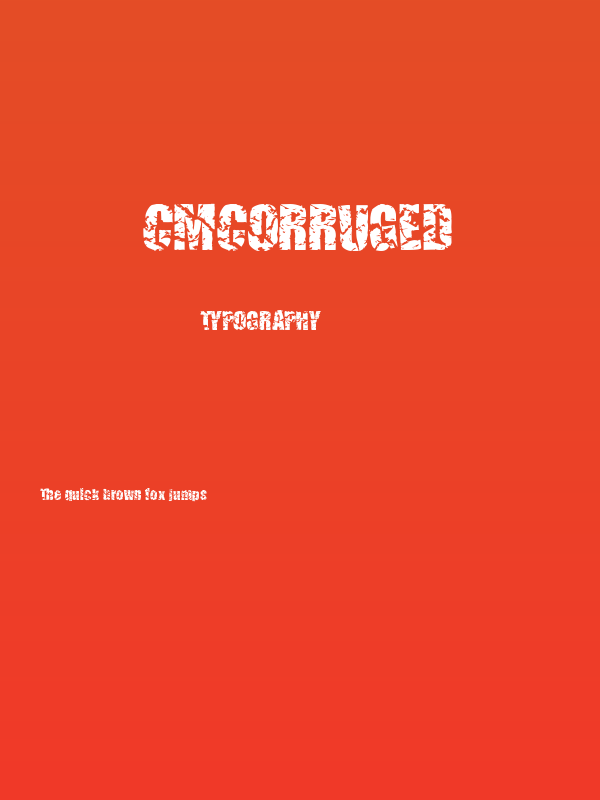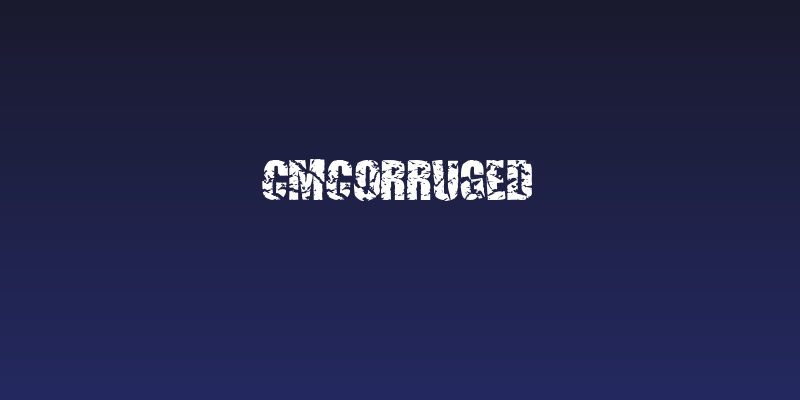
CMCorruged Font
CMCorruged Description
This font features a bold, distressed style with a rugged, textured appearance. The characters are heavily stylized, giving the impression of being worn or eroded, which adds a unique, gritty aesthetic. The uppercase and lowercase letters maintain a consistent design, with each character exhibiting a rough, uneven surface that suggests a sense of movement or chaos. The numbers and special characters follow the same design principles, ensuring a cohesive look across all glyphs. This font's distinctive style makes it ideal for projects that require a bold, impactful visual statement.
| Proposed Projects | Ideal for posters, album covers, branding for edgy or alternative products, and any design requiring a bold, gritty aesthetic. |